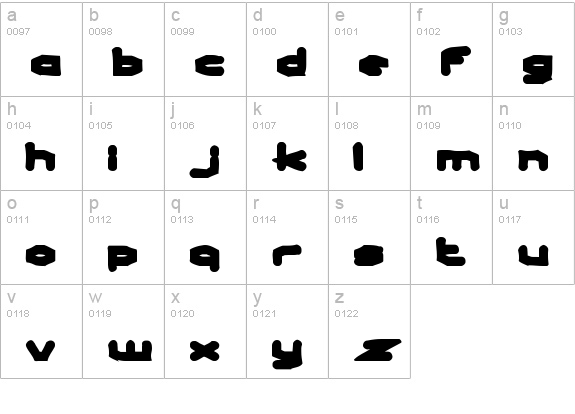
Charles in Charge Ink Font Details
Charles in Charge Ink font is a stylish and modern typeface that exudes creativity and originality. Its bold and expressive strokes give any design a unique and dynamic look. This font is perfect for adding a touch of personality to your projects, whether you're designing posters, logos, or social media graphics. The best part is, Charles in Charge Ink font is available for free download at FontsMarket.com. So, you can easily add this eye-catching font to your collection without breaking the bank. Don't miss out on the opportunity to elevate your designs with this versatile and captivating typeface. Download Charles in Charge Ink font today and let your creativity shine!